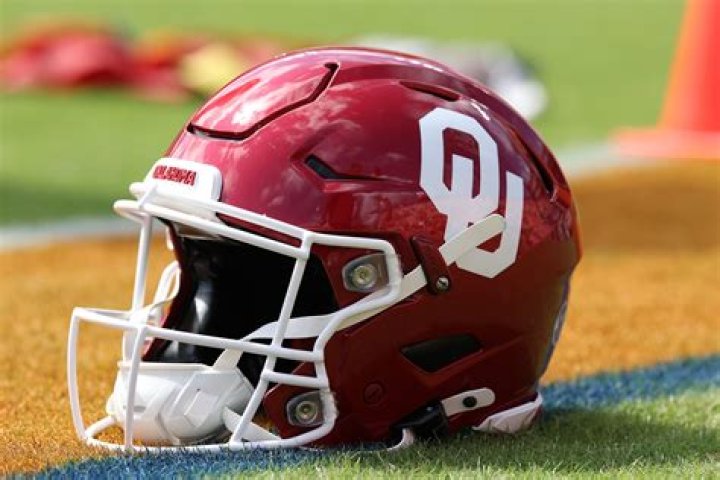
What font is used for Oklahoma sooners?
Adobe Garamond Pro
OU Fonts. The University of Oklahoma’s wordmarks use Adobe Garamond Pro.
What kind of font does the University of Oklahoma use?
The University of Oklahoma’s wordmarks use Adobe Garamond Pro. This is not the only font allowed, but it is recommended. Any font that is clean and classic in design can be compatible with the OU image. Two suggestions below are Bank Gothic and Futura. They are both very consistent with the OU identity and also quite adaptable fonts.